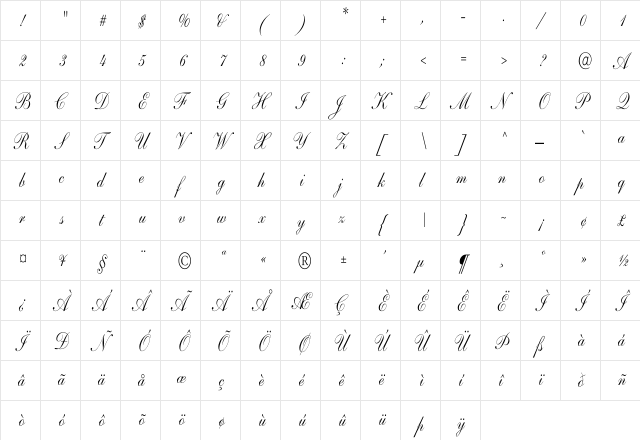
Shelley-AndanteScript Cn Regular Font Preview
Shelley-AndanteScript Cn Regular
Design Context for Shelley-AndanteScript Cn Typeface
Shelley-AndanteScript Cn brings a calligraphic fluidity to the page — its connecting strokes and expressive curves give it an unmistakably human quality.
Font Pairing: Combine Shelley-AndanteScript Cn with a simple geometric sans for maximum contrast — the tension between flowing curves and clean structure is a classic typographic pairing.
Pro Tip: Use Shelley-AndanteScript Cn for short runs of text — names, titles, or taglines. Extended body copy in script faces tires the eye quickly.